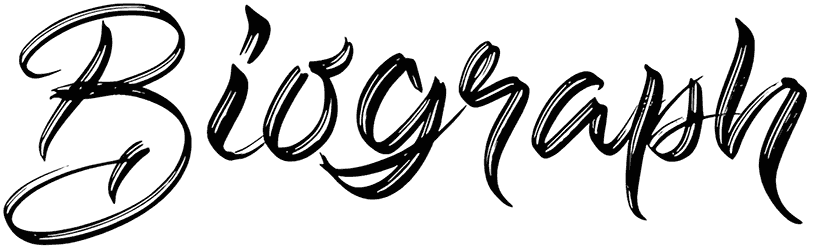
Biograph Font
Exactly like a friendly brush font with inky lettering, look at its organic essence that creates a significant impact. It doesn’t matter if your purpose is an emblem for business cards or the header of greeting cards; in all cases, you can’t find anything more attractive than Biograph.